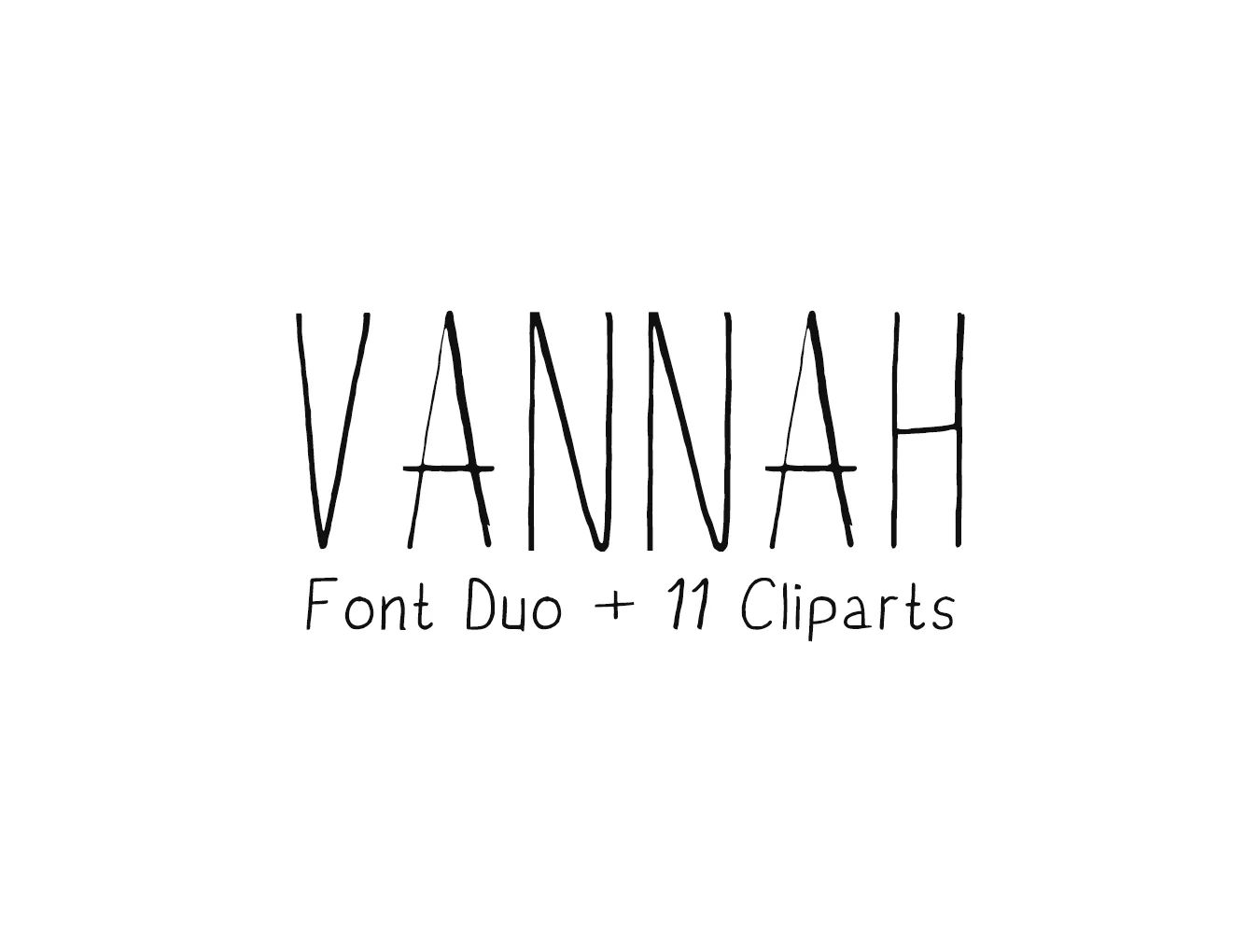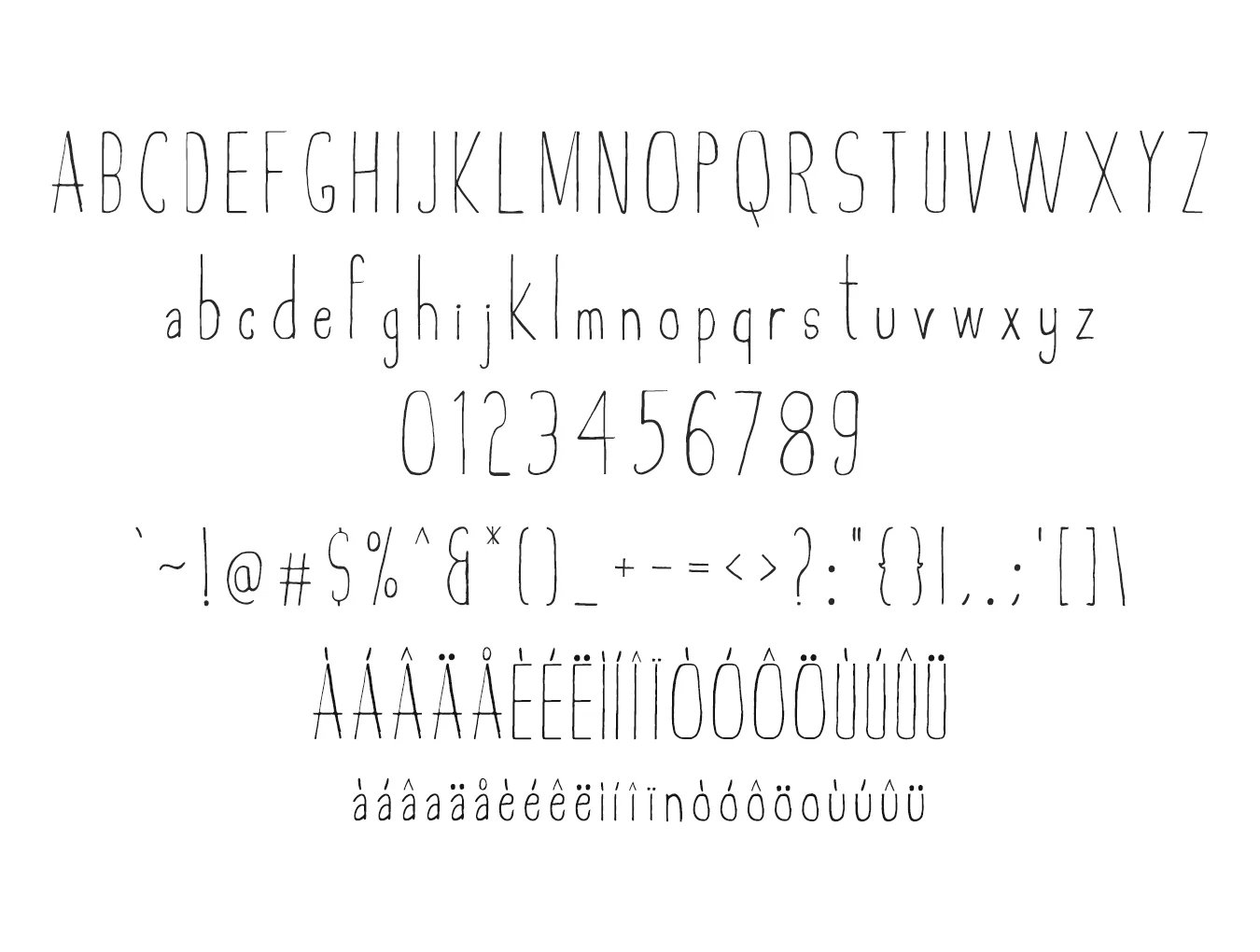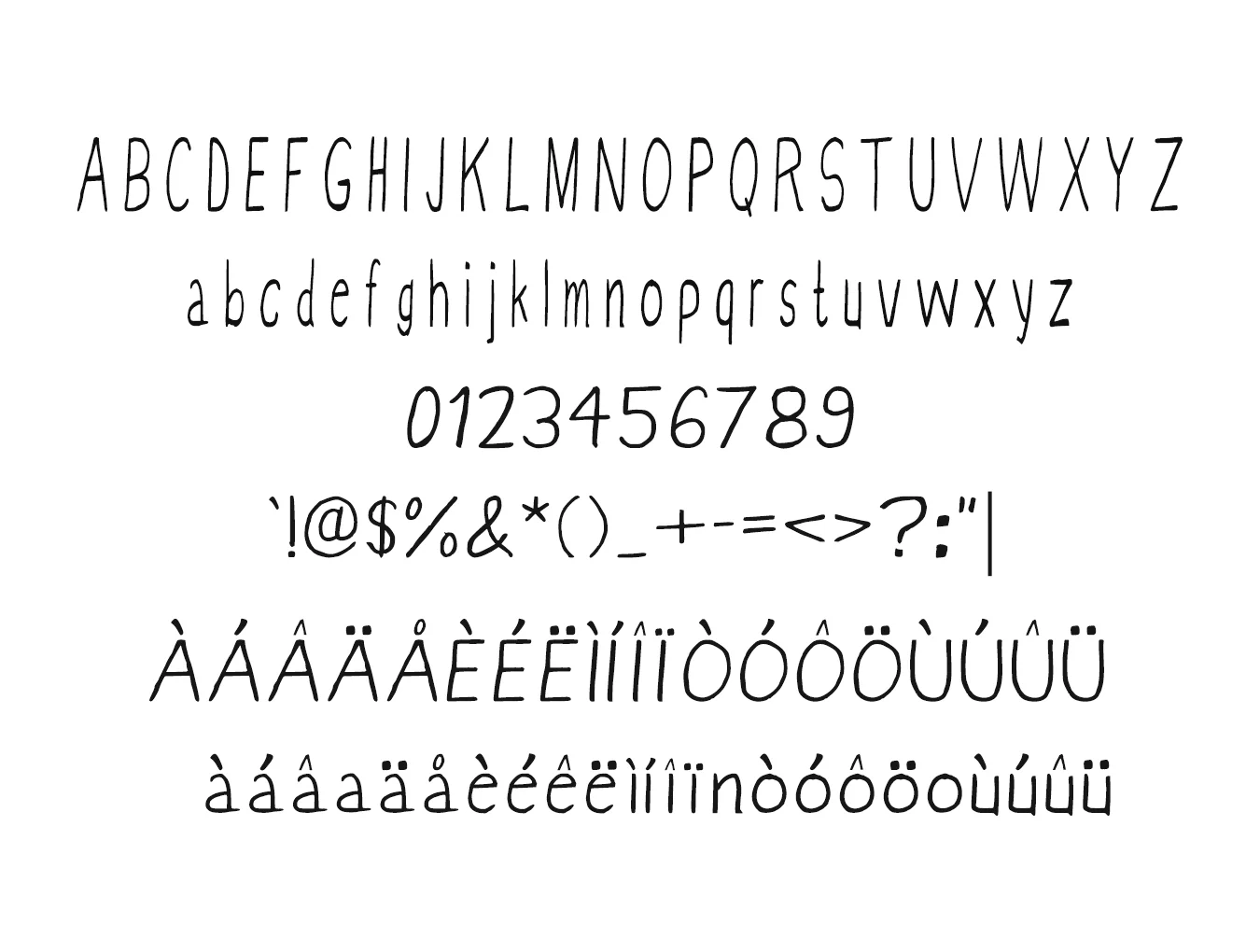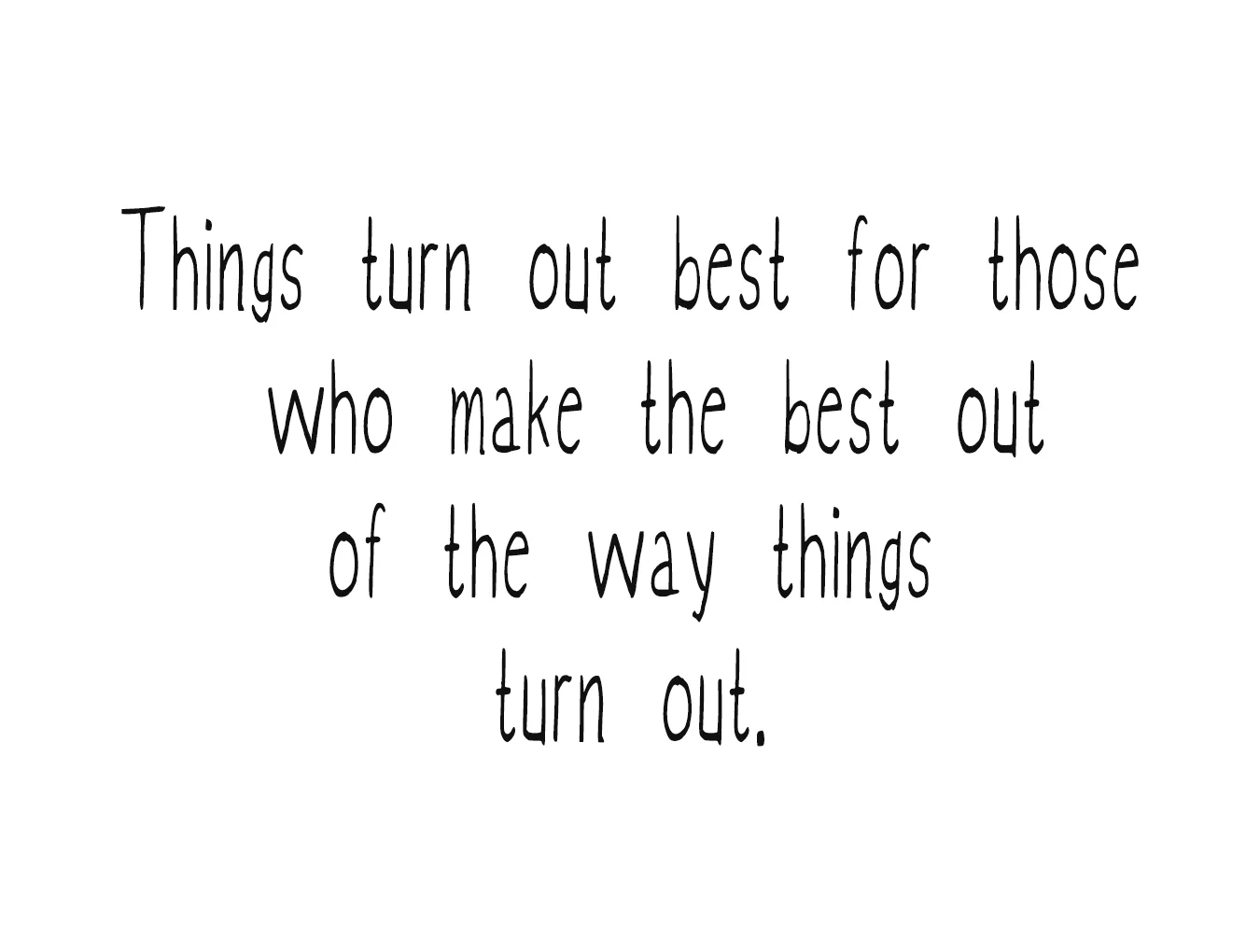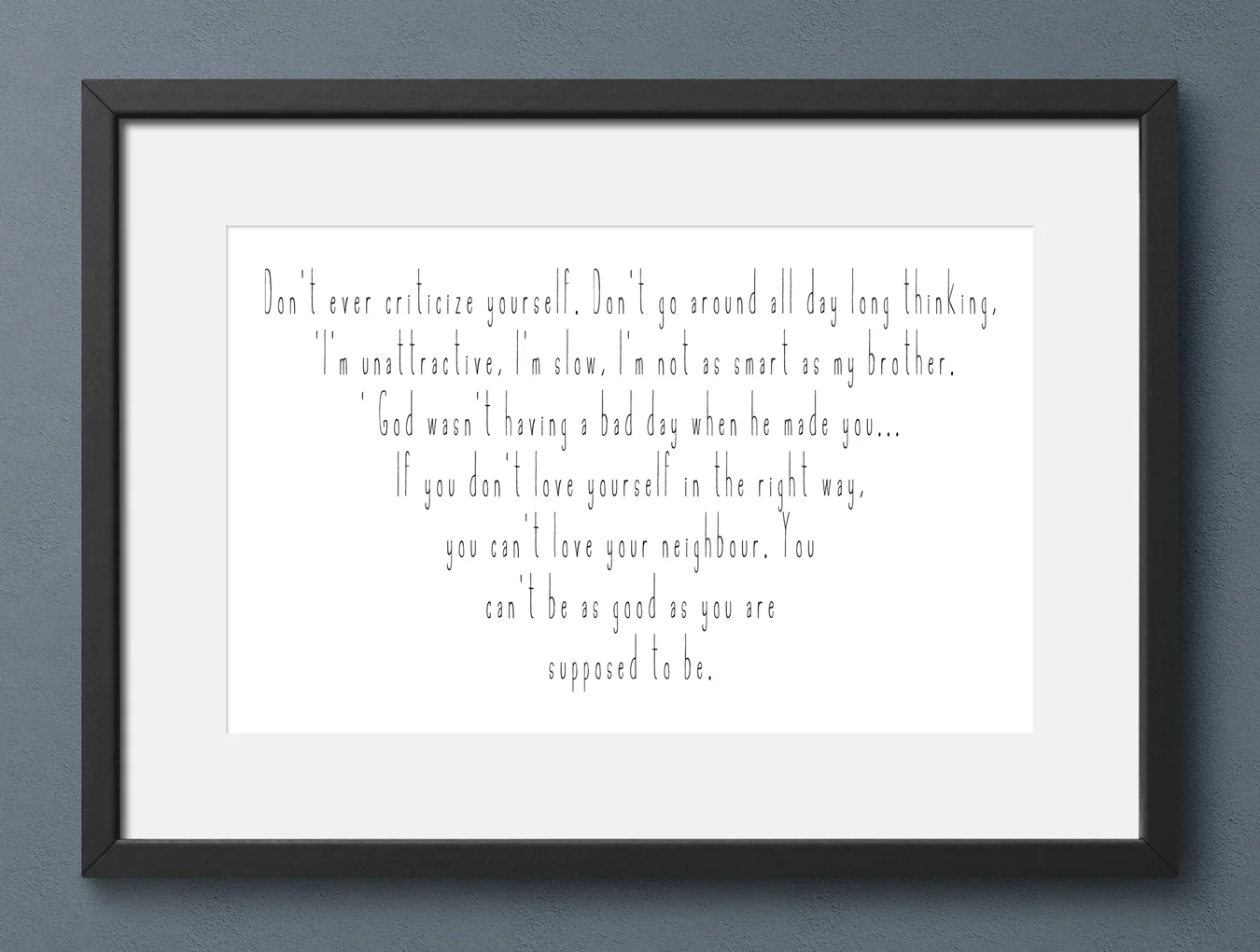
Vannah Font Duo
Handcrafted script font duo with bonus clipart
Capital and small letterforms
Abeer with 130 glyphs plus Vannah with 138
Standard regular style
Vannah Font Duo is a handcrafted two-font script set with uppercase and lowercase letters, numbers, and plenty of punctuation. Use it in spaced all caps for an elegant style, or mix capitals and lowercase for a timeless feel. Great for quotes, branding, logos, merch, social posts, displays, headers, invitations, weddings, titles, packaging, and more.